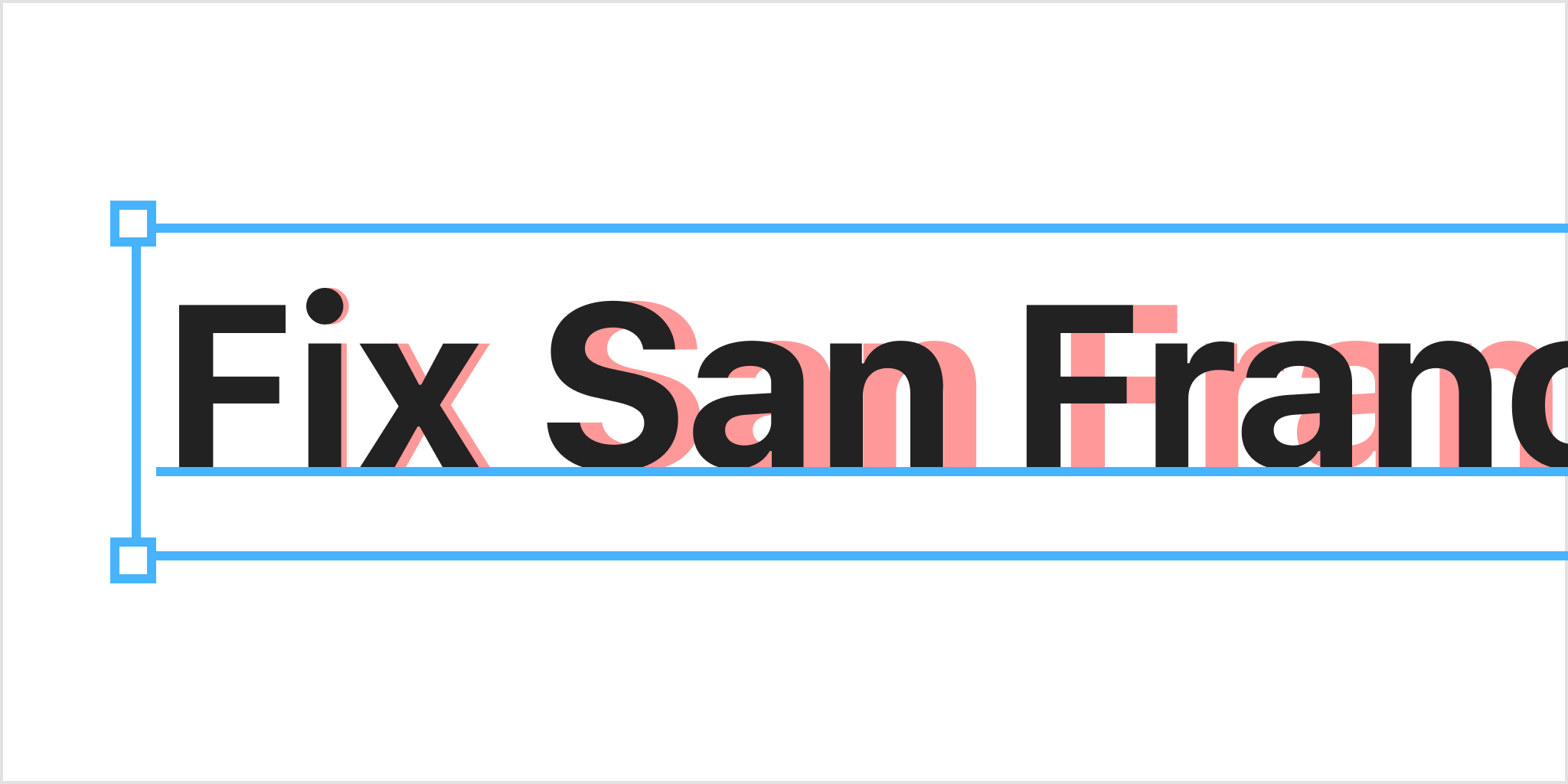
Download San Francisco Font Figma. If you used iphone ios before 2015, they were used helvetica neue on the ios platform. It was first released to developers on november 18, 2014.
Like san francisco, sf arabic. The san francisco font by apple used in the apple watch, ios 9, and os x el capitan. Free download san francisco font in fonts file format for you to use in your designs or use as a base in your favorite design program, psd, sketch, adobe xd or figma.
If you used iphone ios before 2015, they were used helvetica neue on the ios platform. A contemporary interpretation of the naskh style with a rational and flexible design, this extension of san francisco is the arabic system font on apple platforms. San francisco font is the main font of apple devices.